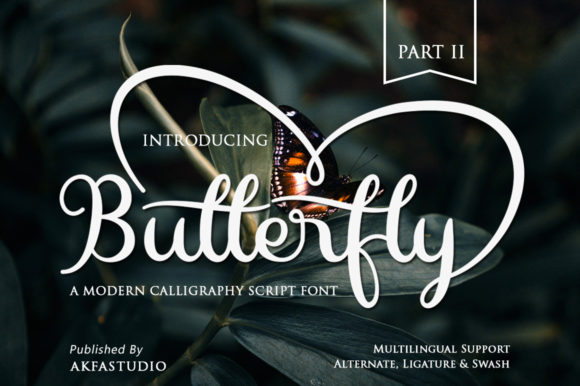
The Butterfly Effect: How a Beautiful Handwritten Font Can Transform Your Designs
I’ll never forget the time I was working on a packaging project for a client’s new product line. I had spent hours perfecting the layout, colors, and overall aesthetic, but something was missing. As I scrolled through font after font, I just couldn’t find the right one. That was until I stumbled upon the Butterfly font. ✨ It was love at first sight! The elegant, handwritten curves and perfect kerning made it an instant winner. In this article, I’ll share my experience with the Butterfly font, its features, and how to make the most of it in your designs.
An Honest Review of Butterfly Font
- 💕 Perfect for high-quality designs: The Butterfly font is made for packaging products, invitation cards, flyers, mockup products, event posters, clothing, and more.
- ✅ Beautiful kerning: The attention to detail in this font is impressive, making it perfect for almost any creative project.
- ✨ Versatile: From digital to print, this font adapts seamlessly to different mediums.
- 🎨 Highly customizable: With OpenType features and glyphs, you can experiment with different styles to match your brand’s tone.
While the Butterfly font is exceptional, there are a few minor things to keep in mind: 🤔
- ⚠️ Limited use in very small sizes: As with many handwritten fonts, it may not be the best choice for body text or very small sizes.
- 😐 Not ideal for very formal projects: The Butterfly font has a distinctly creative, artistic feel, so it might not be the best fit for very formal or corporate projects.
The Butterfly font was designed with the creative professional in mind. Its creator wanted to craft a font that would be both elegant and versatile, suitable for a wide range of projects. Inspired by the delicate curves of butterfly wings, this font is sure to add a touch of sophistication to any design.
| Author | Akfa Studio |
Q: What is the Butterfly font best used for?
A: The Butterfly font is perfect for high-quality designs, including packaging products, invitation cards, flyers, mockup products, event posters, clothing, and more.
Q: Is the Butterfly font available in different styles?
A: While the Butterfly font comes in a single style, its OpenType features and glyphs allow for a range of customization options.